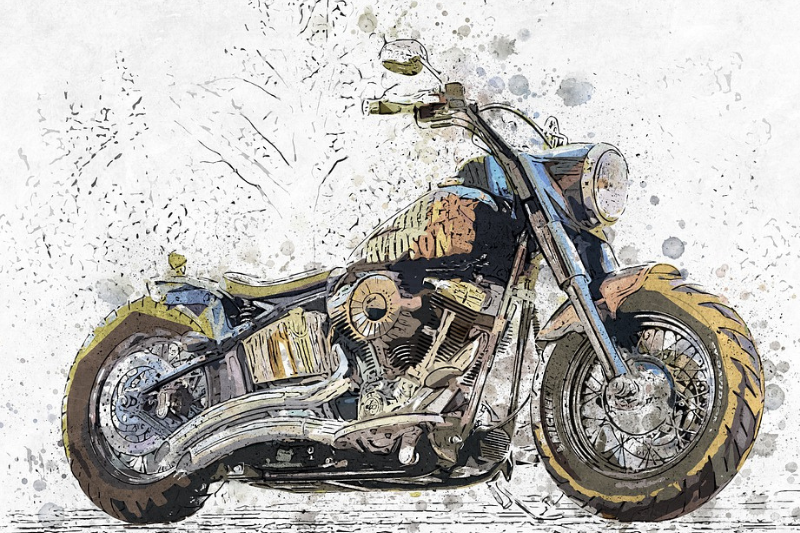
Harley Davidson Font Generator
About the Harley Davidson Font Generator
Harley-Davidson's brand identity is one of the most powerful in American culture β€” the bold eagle-wing script, the thick black lettering, and the orange-and-black palette are instantly synonymous with freedom, rebellion, and the open road. Harley-style typography is beloved by motorcycle enthusiasts, custom builders, and anyone who wants their design to carry that raw American spirit.
• Custom motorcycle club logos and patches
• Biker event flyers and rally graphics
• Garage and man-cave wall print designs
• Americana and patriotic themed merchandise concepts
• Social media posts for motorcycle enthusiasts